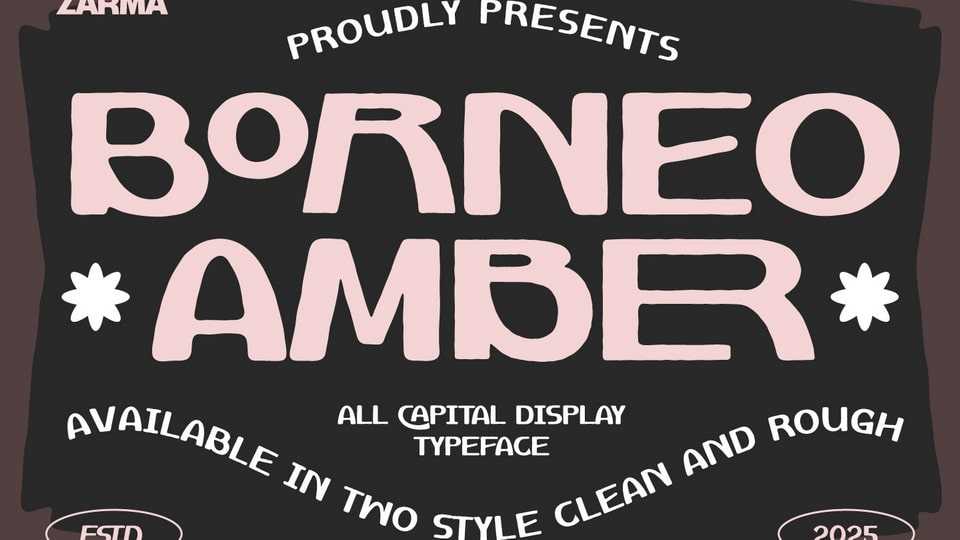
Borneo Amber Font › Fontesk
Download Borneo Amber font, designed for those who appreciate the art of contrast—where modern precision meets vintage personality. The bold geometry of its letterforms is softened by subtle curves and handcrafted detailing, creating a look that feels both sturdy and expressive.
Designer: Zarma Type Foundry